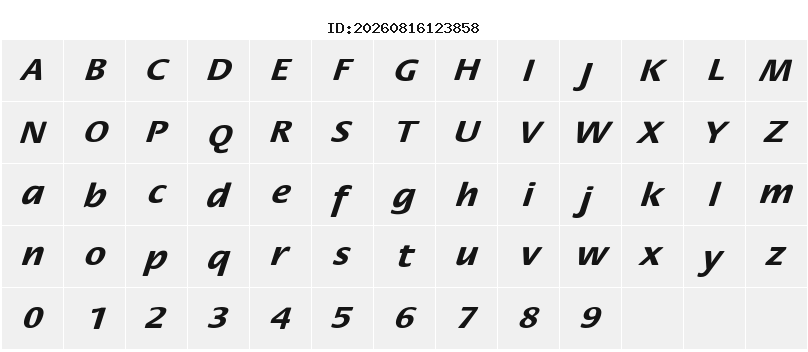
• Font Name: StackExtObl-Bol
• Full Font Name: StackExtObl-Bol
• PostScript Name: StackExtObl-Bol
About StackExtObl-Bol.ttf
StackExtObl-Bol.ttf is a modern, elegant sans-serif font designed for ultimate readability and visual harmony. Perfect for branding, headlines, web design, and print materials.